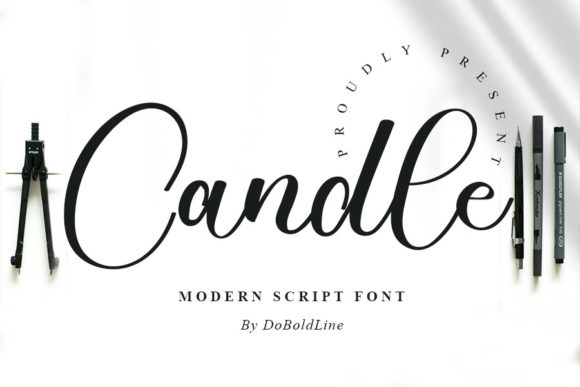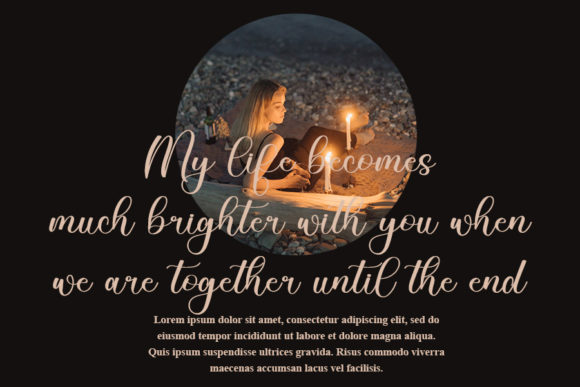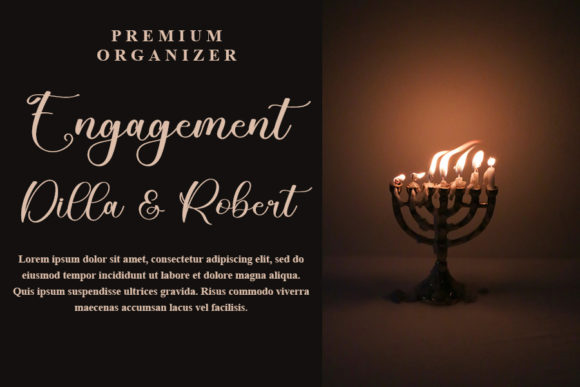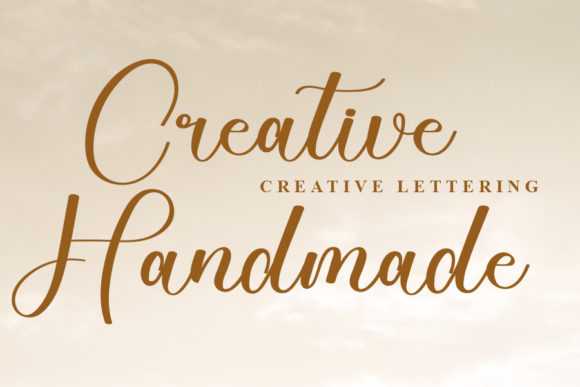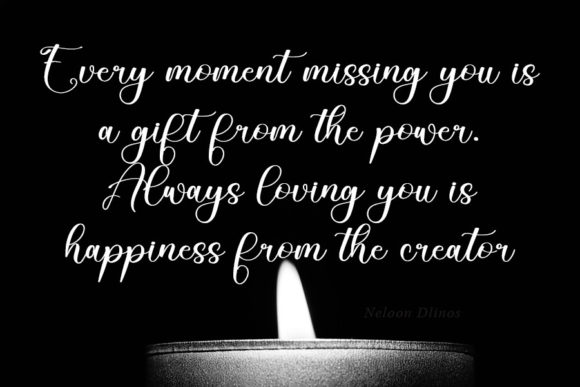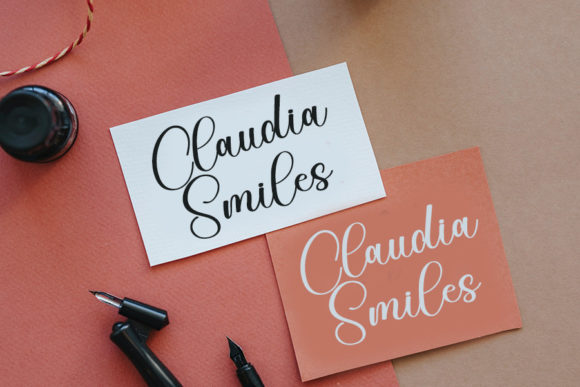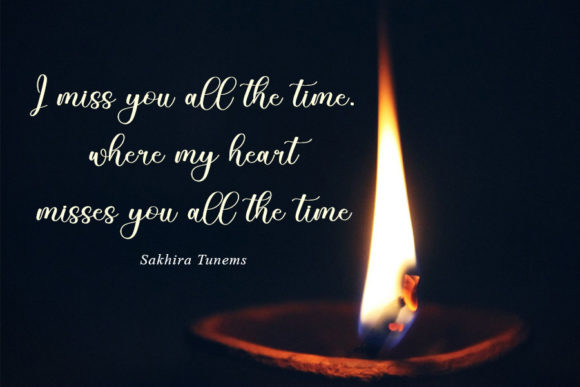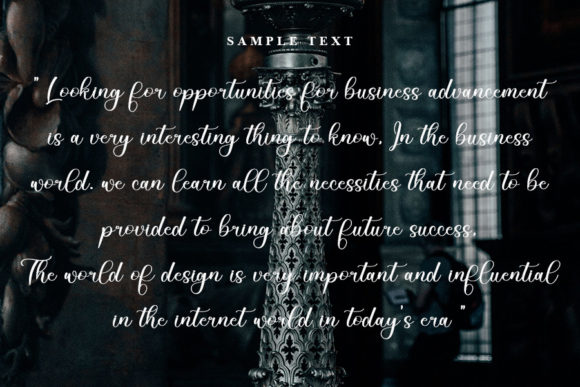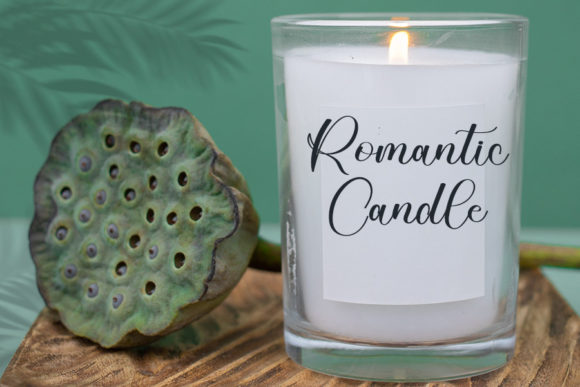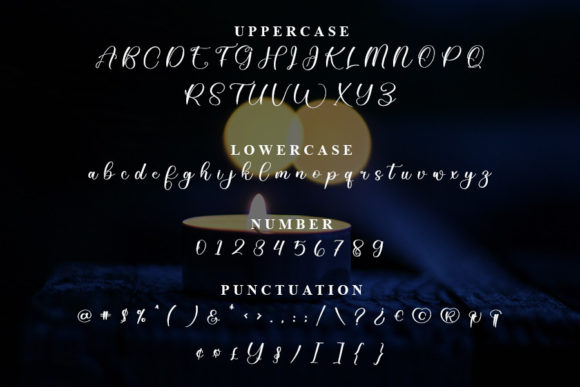
Candle Font
About Candle Font
Introducing “Candle,” a stylish handwritten font that exudes a contemporary atmosphere and impeccable form, drawing inspiration from timeless classic calligraphy. With its balanced and varied design, this font is crafted to elevate the beauty of your projects, providing a touch of sophistication.
Candle’s stylish handwritten script brings a modern flair while maintaining the grace of classic calligraphy. The font is thoughtfully designed to strike a perfect balance, making it versatile and suitable for a variety of creative applications. Whether applied to logos, branding, invitations, or any other project, Candle enhances the visual appeal with its timeless yet contemporary aesthetic.
Imagine Candle gracing your branding materials, adding a touch of sophistication and modernity to your corporate identity. Picture it enhancing wedding invitations, creating an elegant and refined atmosphere for the celebration. The font’s impeccable form ensures that each character contributes to the overall visual harmony, making it a valuable asset for designers seeking a blend of classic and contemporary.
In essence, Candle is more than just a font; it’s a design statement that combines timeless classic calligraphy with a contemporary edge. Its stylish and balanced handwritten script is an invitation to enhance the beauty of your projects with a touch of sophistication. Choose Candle to add a stylish and impeccable form to your work, making each creation a testament to the enduring elegance of handwritten design.